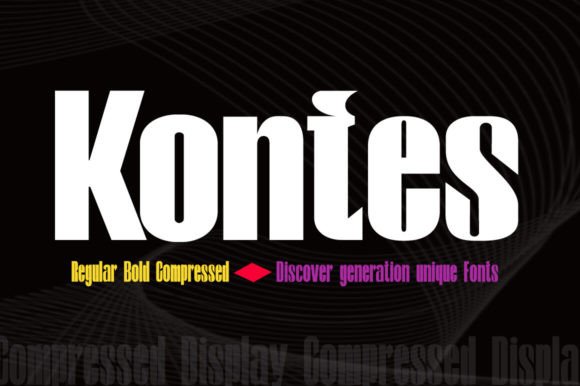
Introducing Kontes Font, the epitome of modern logo design. This captivating sans serif font family exudes elegance, femininity, and sensuality, leaving an unforgettable impression on your audience. Crafted with meticulous attention to detail, Kontes Font boasts a unique charm that sets it apart from the ordinary.
Embark on a typographic journey where simplicity meets sophistication. Kontes Font's clean lines and refined curves create a timeless aesthetic that transcends trends. Its effortless readability ensures that your message is communicated with clarity and impact, making it the perfect choice for a wide range of design applications.
Immerse yourself in the versatility of Kontes Font. Its diverse range of styles, from delicate to bold, allows you to convey a multitude of emotions and concepts. Whether you're crafting an enchanting invitation, a chic label, or a captivating logo, Kontes Font has the power to elevate your designs to new heights.
With Kontes Font, your creativity knows no bounds. Unleash your imagination and explore the endless possibilities it offers. Let Kontes Font be your trusted companion as you embark on your design endeavors, transforming your ideas into stunning visual masterpieces.